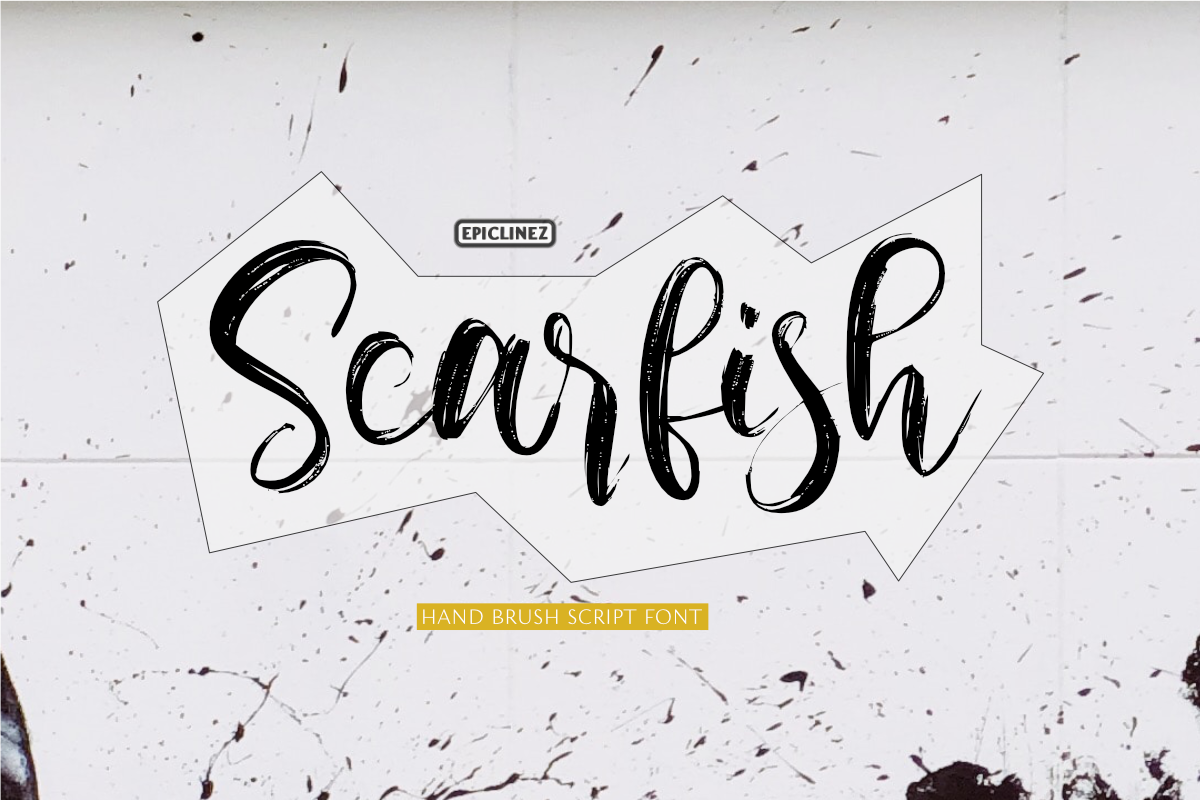
Scarfish is an urban-style handwritten brush font, with a unique brush texture. The name scarfish was inspired by the legendary movie, scarface. It is the best choice for creating eye-catching logos, branding, and quotes.
The font Scarfish contains 198 glyphs. Supporting more than 66 languages, from English to Zulu. It is also PUA encoded, multilingual, and has open-type features such as ligatures.
Scarfish is casual, carefree, and authentic. Handcrafted with passion and love for your awesome projects.